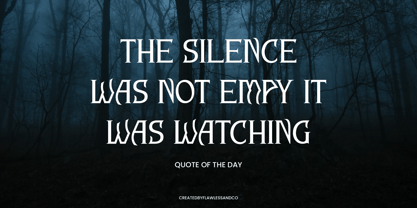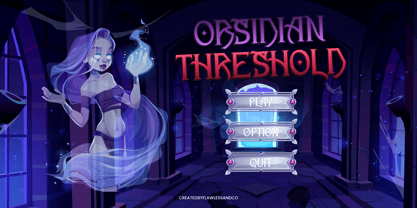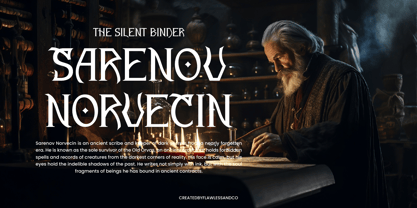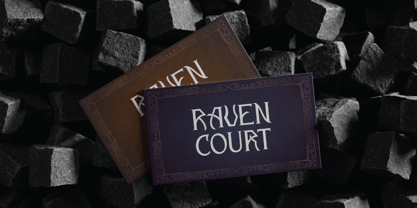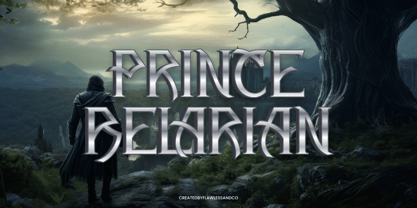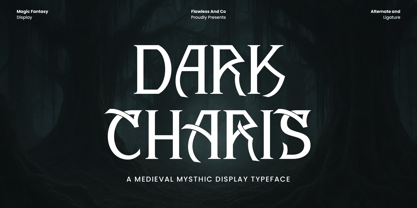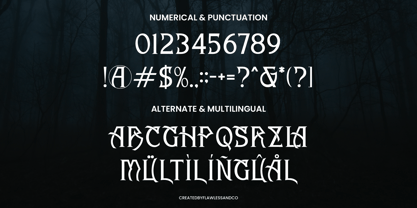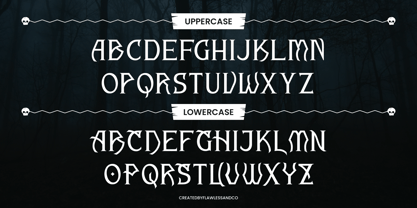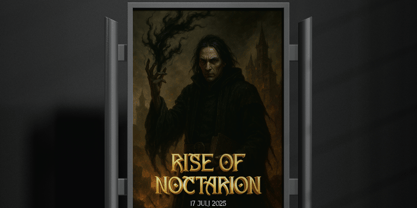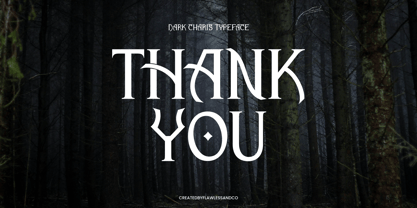
Dark Charis
La familia tipográfica Dark Charis fue diseñada por Achmad Yani y publicada por Flawlessandco. Dark Charis contiene 1 estilos. Más información sobre esta familia
Dark Charis is a bold fantasy display typeface that blends medieval mysticism with a modern creative touch. With its sharp curves, intricate ligatures, and enchanting design, this font instantly brings a sense of magic, mystery, and elegance to your projects. Perfect for fantasy book covers, game titles, movie posters, logos, or branding that requires a strong and mystical presence, Dark Charis creates a dramatic visual impact.
Features :
Multilingual, Uppercase alphabet A-Z, Lowercase alphabet a-z, Numbers 0-9, Some punctuation, Alternates & Ligatures